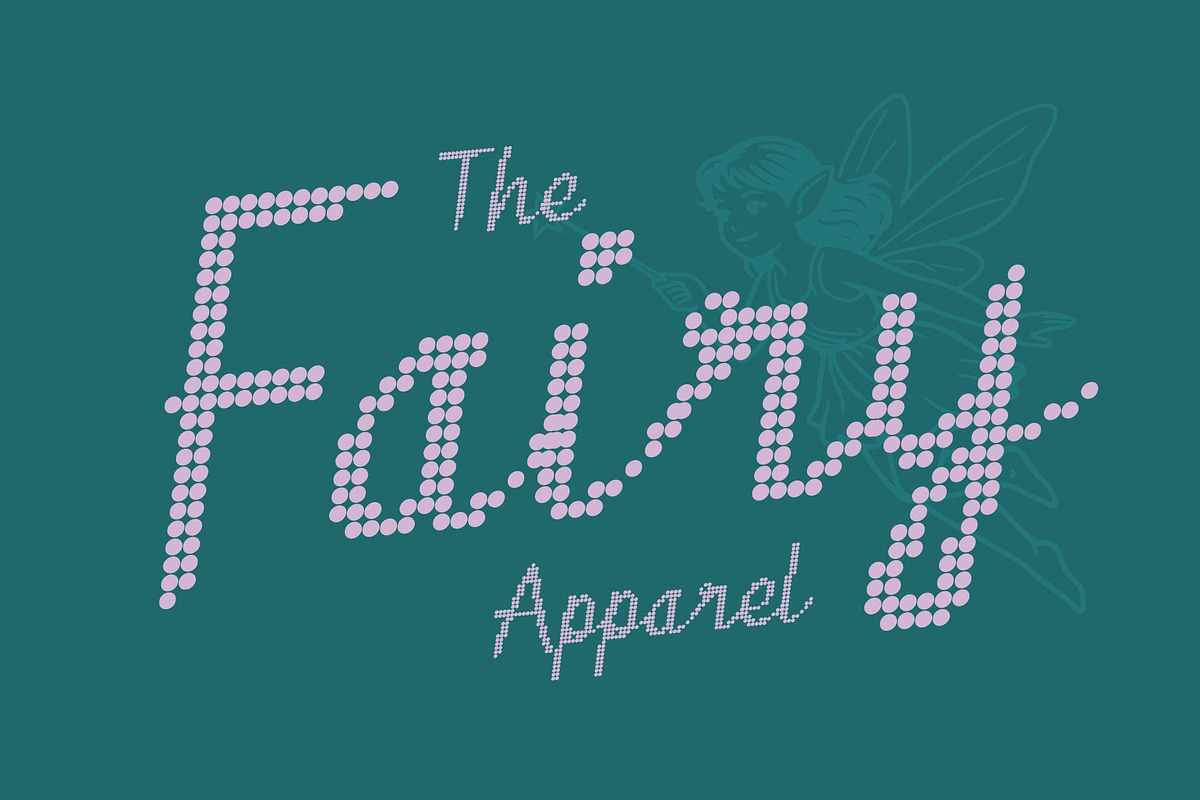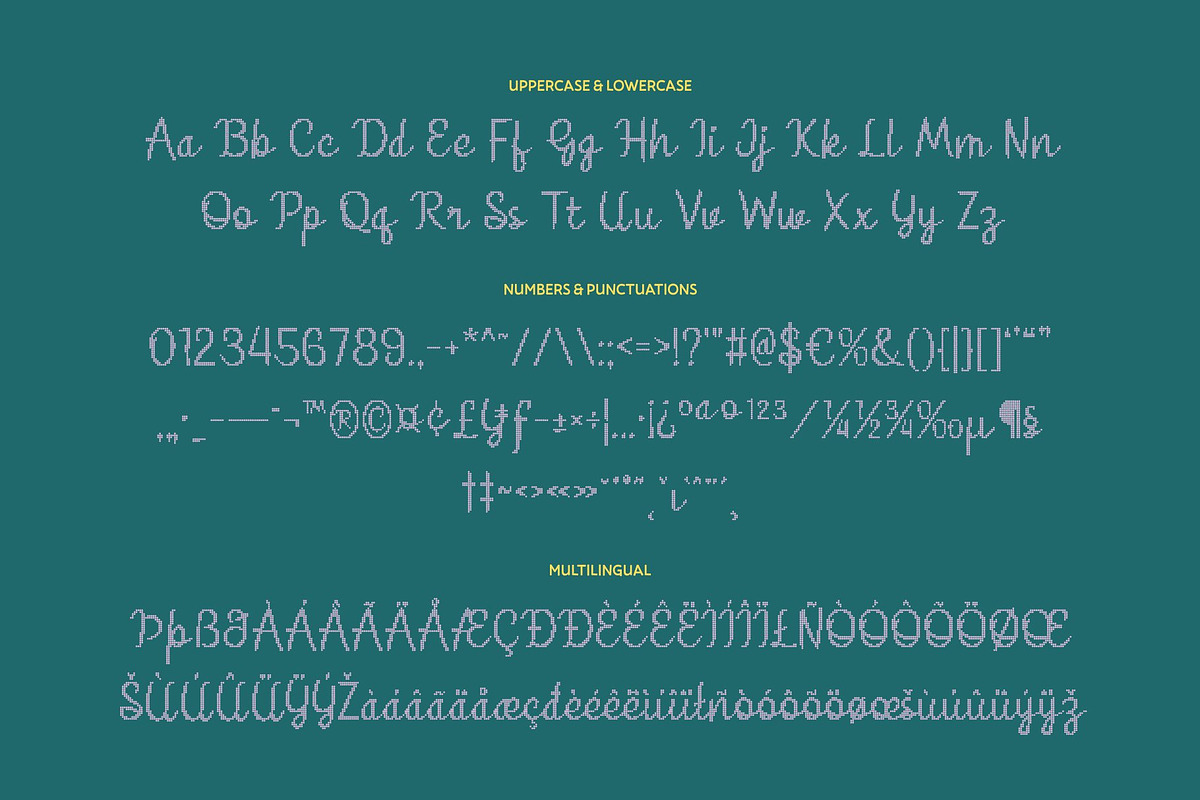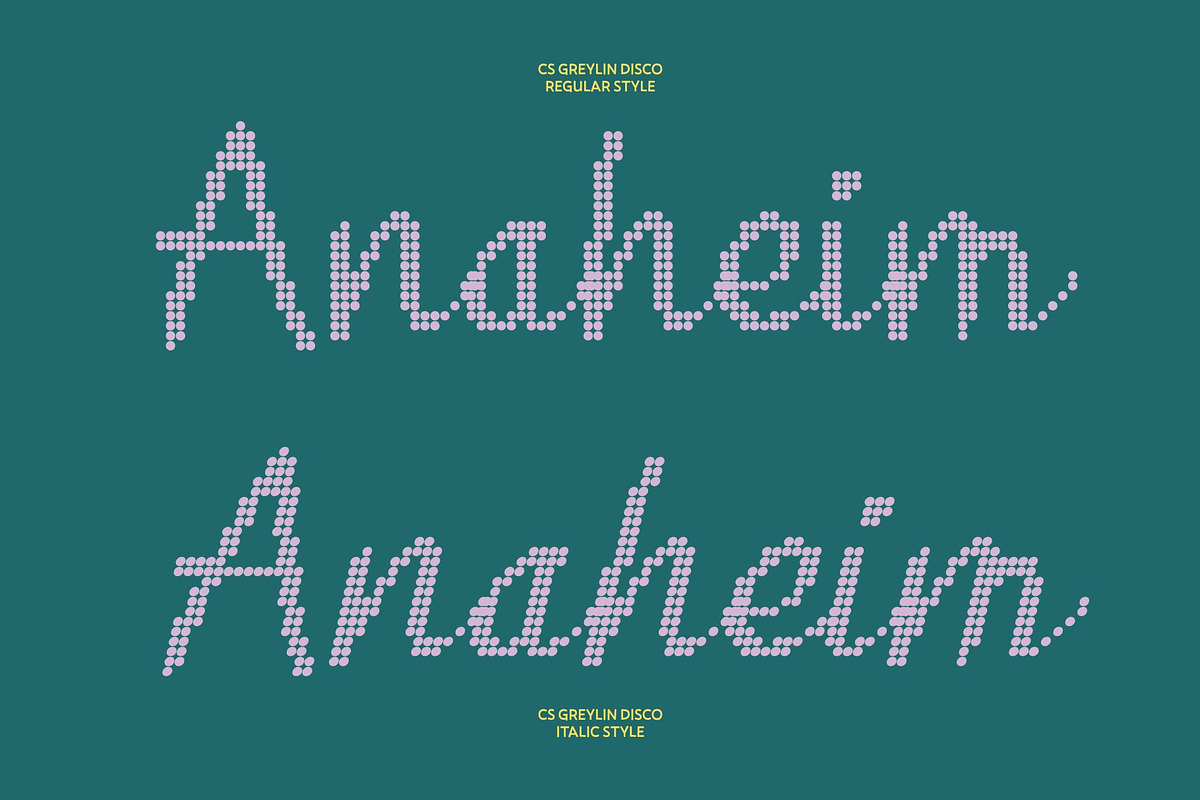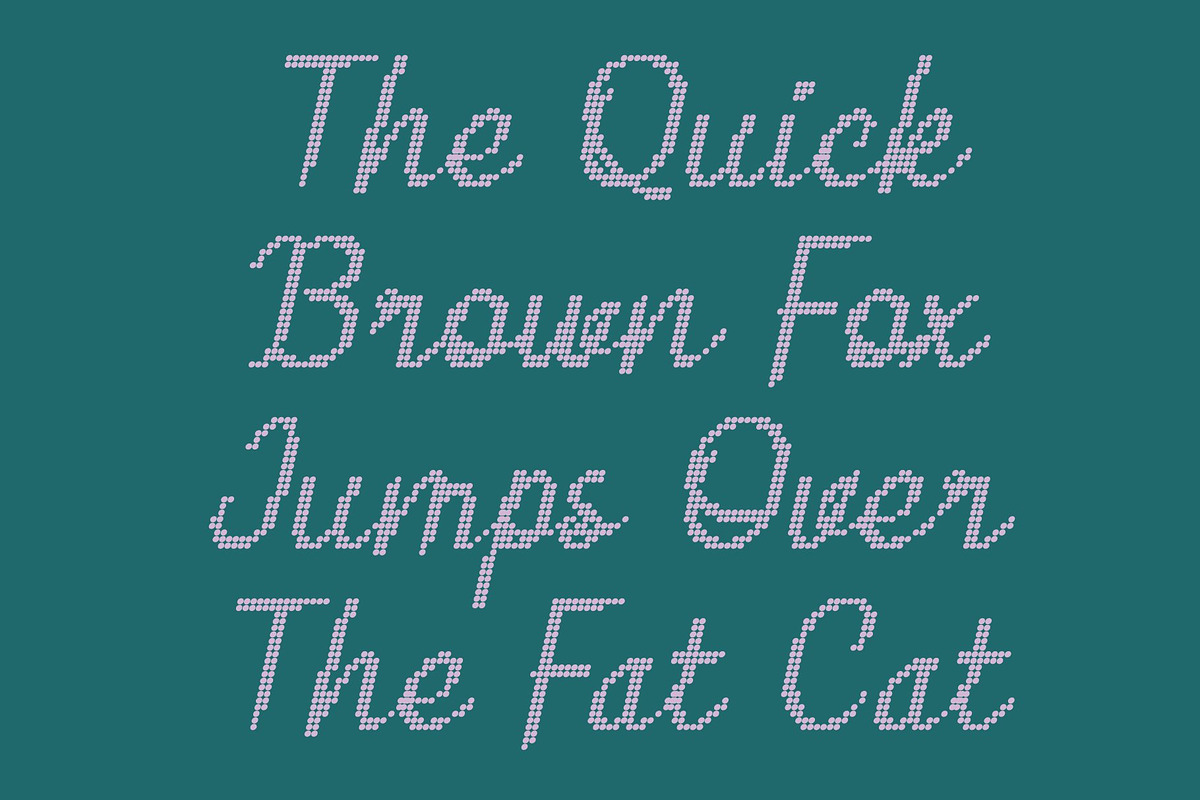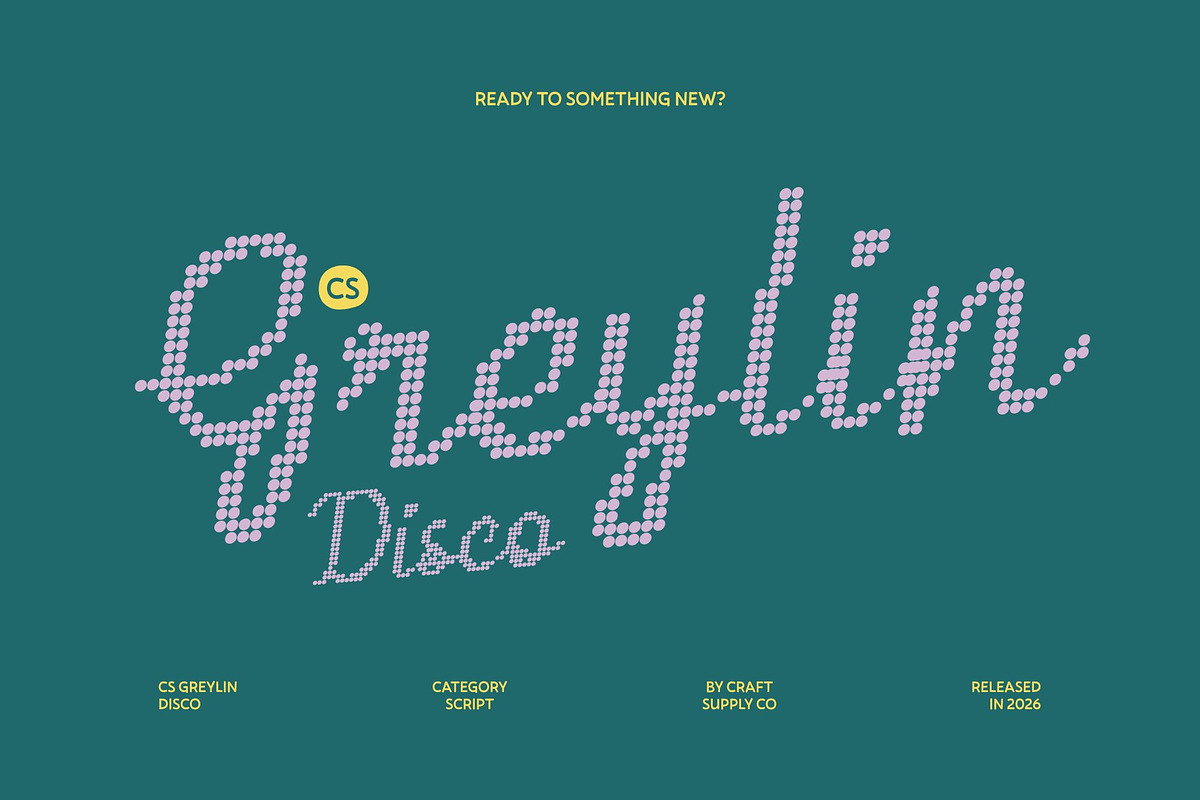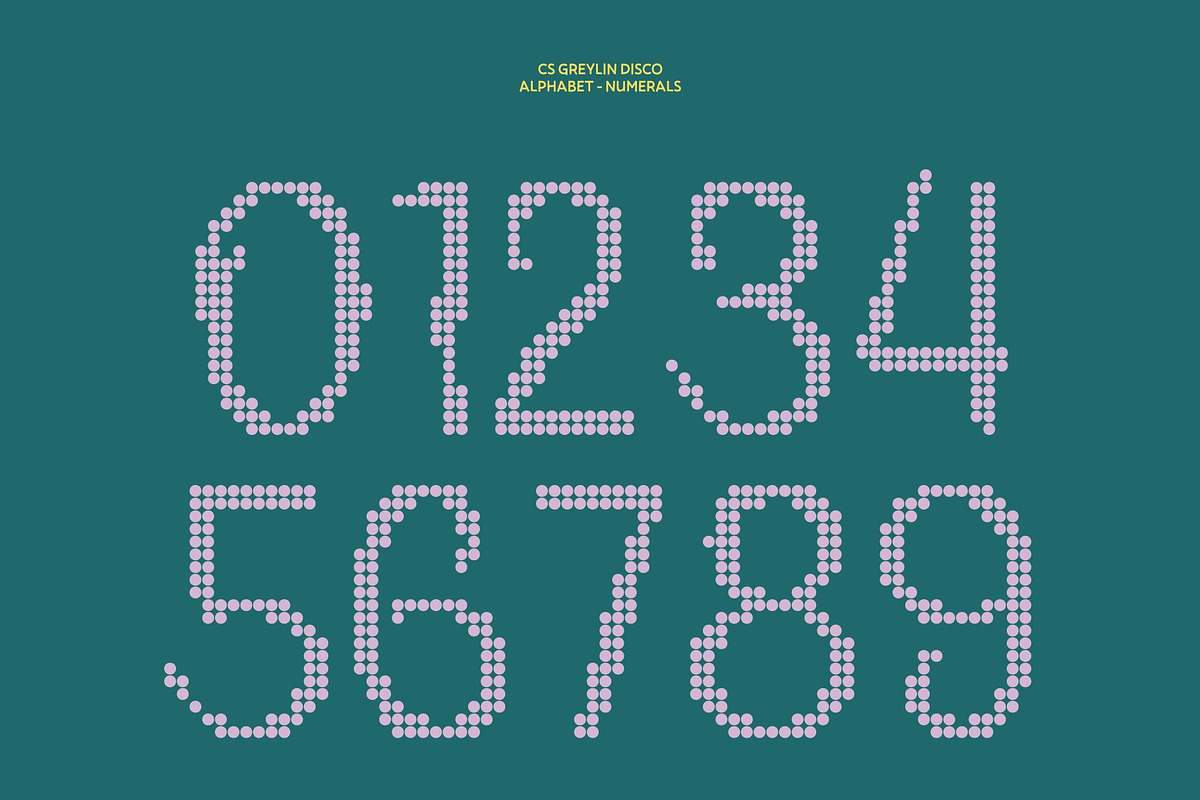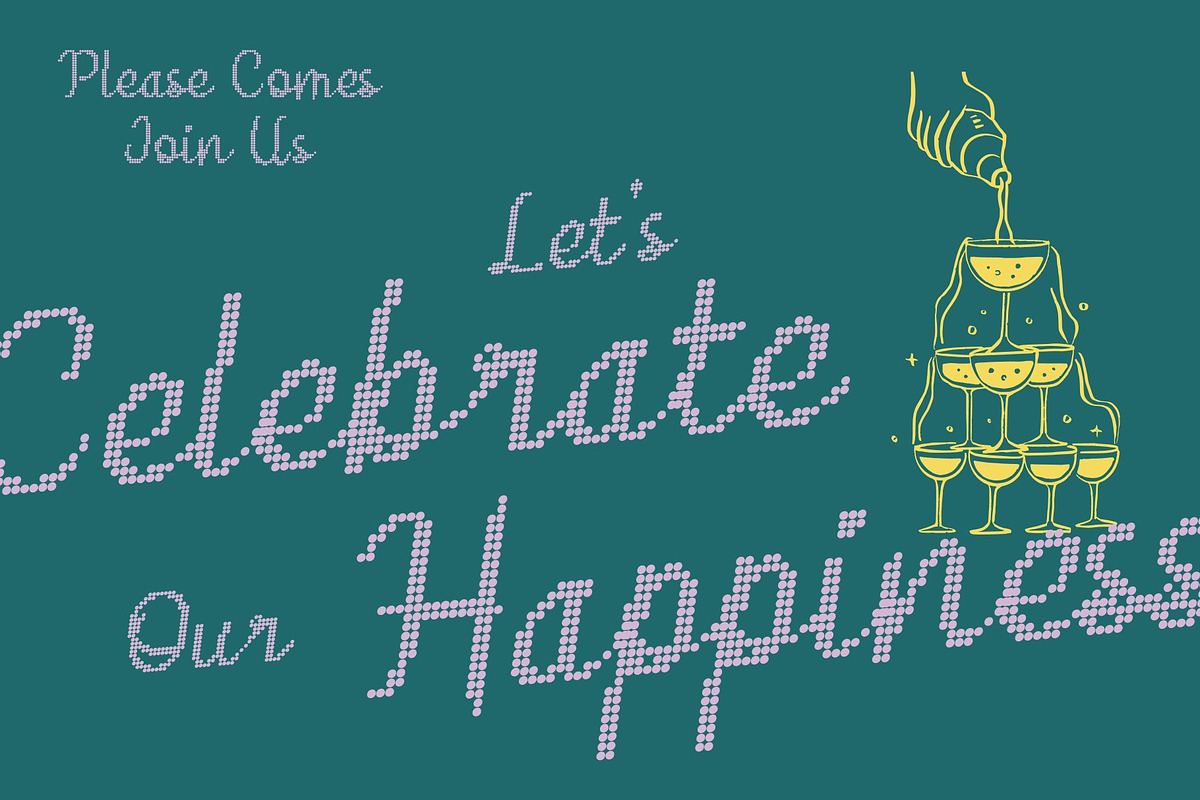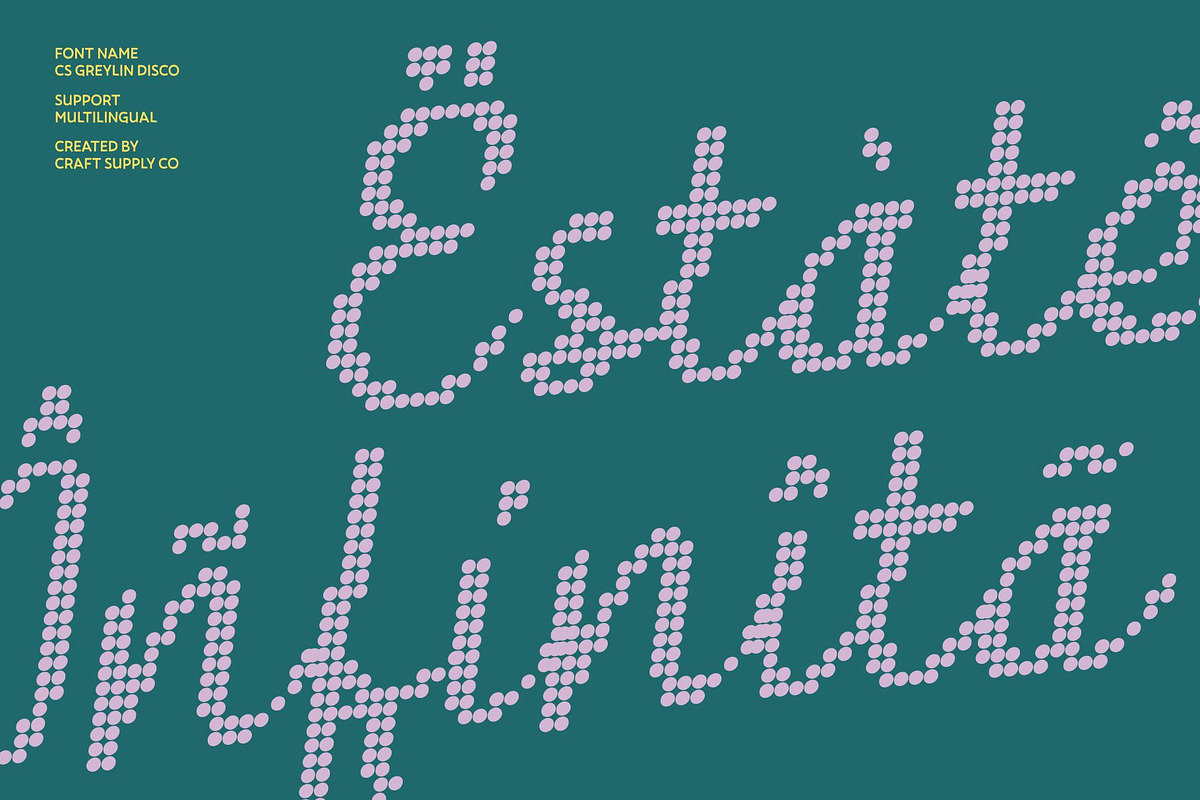
CS Greylin Disco
CS Greylin Disco – Script Font: Grace in Every Curve
Flowing Cursive with Disco Radiance This is a modern script font that beautifully merges the charm of handwritten cursive with the precision of contemporary typography now illuminated with subtle disco energy. Every stroke flows smoothly, creating a continuous rhythm that feels natural yet intentional, like elegant lettering moving to music. The result is a typeface that radiates sophistication while shimmering with celebratory flair.
Clean, Proportional Design with Luminous Balance Crafted with meticulous precision, features balanced proportions, consistent spacing, and refined monoline harmony. The gentle firmness of its strokes ensures clarity, while its soft curves preserve grace and warmth. This polished structure allows it to remain legible at various sizes, whether glowing in large headlines or shining delicately in smaller accents.
Elegant Glamour for Luxury Branding With its flowing elegance and subtle sparkle, this is perfect for projects that celebrate beauty and refinement with a touch of glamour. From wedding invitations and upscale event stationery to luxury beauty branding and fashion campaigns, it brings a sense of elevated charm. The graceful movement of its script reflects confidence, romance, and timeless style enhanced by a festive, radiant spirit.
Versatile Sophistication with Celebratory Flair Beyond its beauty, this font adapts effortlessly across creative applications logos, packaging, editorial layouts, social media graphics, and more. It can stand boldly as a luminous focal point or complement minimalist compositions with graceful flow.